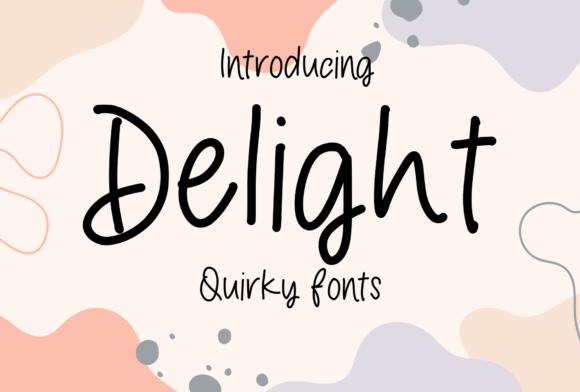
Introducing Delight: Where Creativity Meets Joy
Have you ever stared at a blank canvas, searching for the perfect words to express your feelings? Maybe it’s a Valentine’s Day card for that special someone, or a Christmas message for your loved ones. Whatever the occasion, we’ve all been there – yearning for a font that captures the essence of our emotions and conveys our heartfelt message.
Enter Delight, a hand-crafted typeface that embodies warmth, playfulness, and personality. Designed to add a personal touch to any creation, Delight Font is the perfect addition to your design arsenal. Whether you’re a seasoned designer or a creative enthusiast, this font is sure to bring a smile to your face and a touch of magic to your projects. With Delight, the possibilities are endless – from cards and planners to product designs and beyond.
Delight Font Key Features
- Unique Characteristics: Delight Font features a playful and elegant design, with subtle rounded edges and a mix of serif and sans-serif elements, making it perfect for creative and professional applications.
Delight Font Review
Overall, I’d say the Delight Font has some great qualities, but also some notable limitations.
- Delight Font has a unique and playful style that can add a lot of character to designs.
- The font is highly legible, making it suitable for a wide range of applications, from body text to headlines.
- It’s available in multiple weights and styles, giving users a lot of flexibility when it comes to choosing the right version for their project.
- The Delight Font can feel a bit too whimsical or childish for some applications, which may limit its use in more formal or professional contexts.
- The font may not be the best choice for smaller text sizes, as the letters can become somewhat pixelated and lose their clarity.
- While the font is highly legible, it may not be the most versatile option for complex or technical text, as it can be difficult to read in certain situations.
Overall, I think the Delight Font is a solid choice for designers who want to add a bit of whimsy and personality to their projects. However, it may not be the best option for every application, and users should be mindful of its limitations when choosing it for their designs.
Tips for Getting the Most Out of Delight Font
Use Delight Font to add a touch of elegance and sophistication to your designs. Pair it with bold, geometric shapes to create visually striking combinations.
Delight Font is ideal for:
- Business cards and branding materials
- Magazine and editorial designs
- Event and party invitations